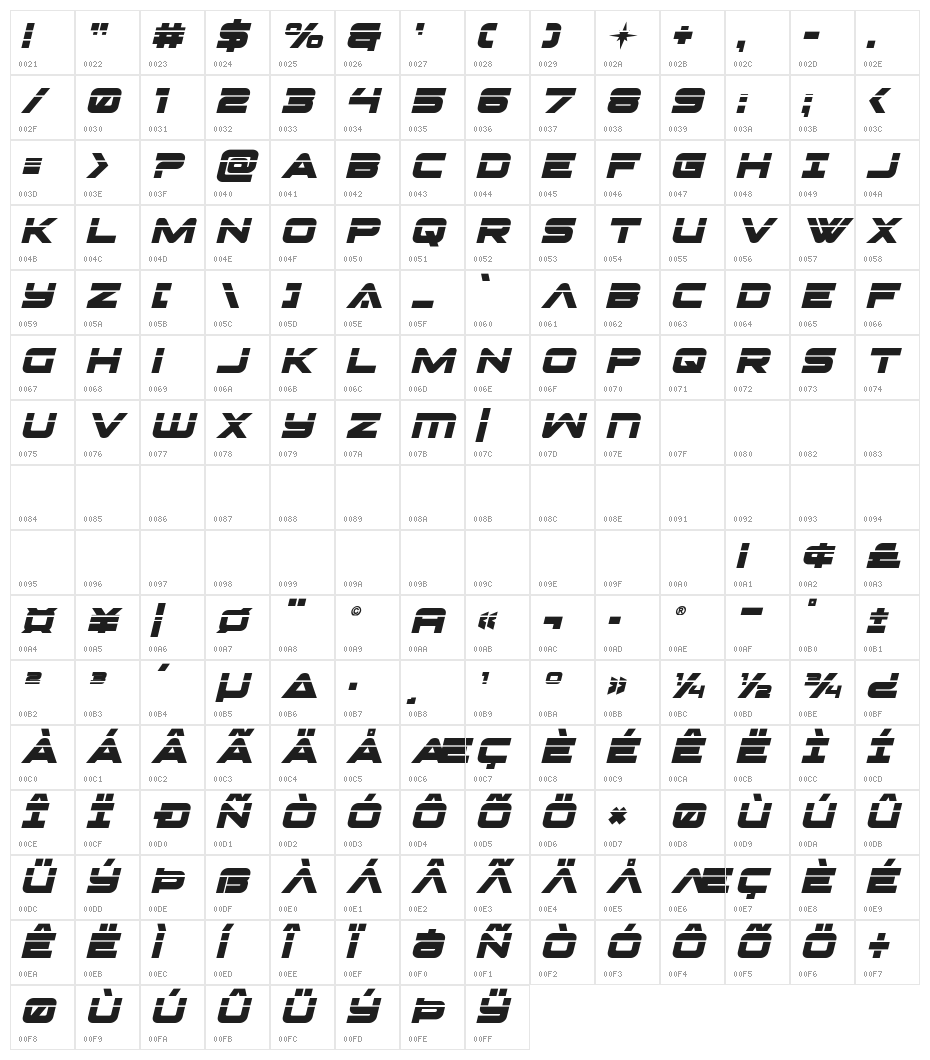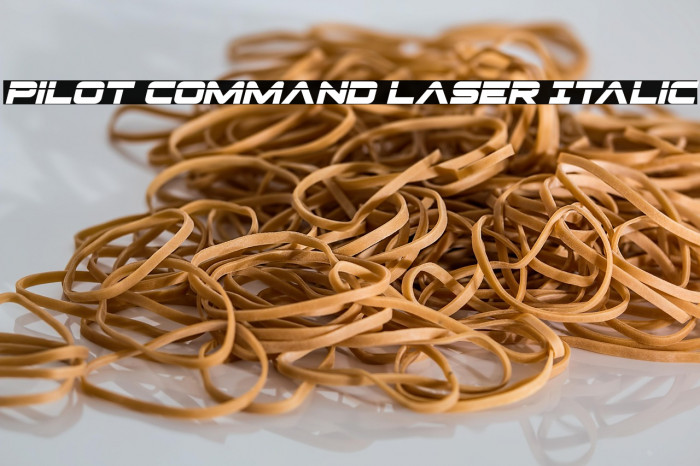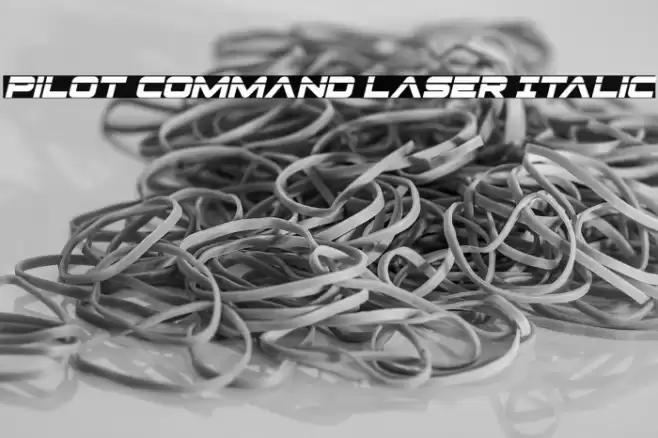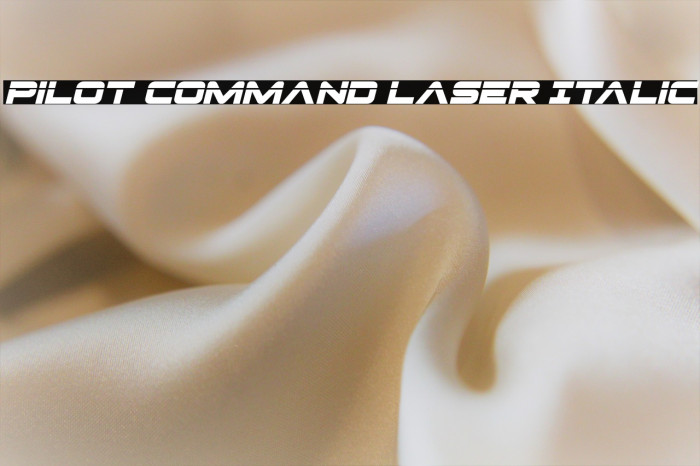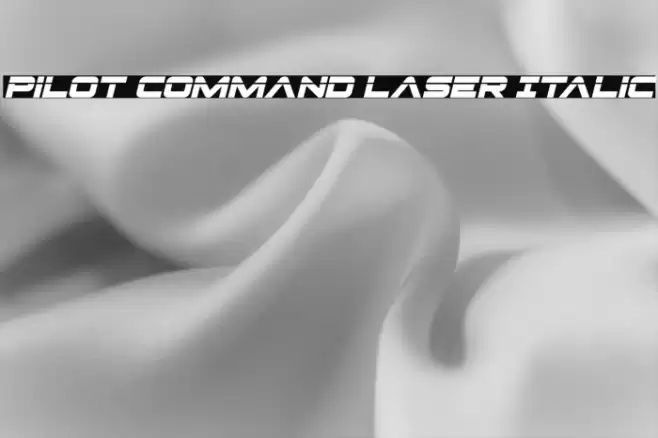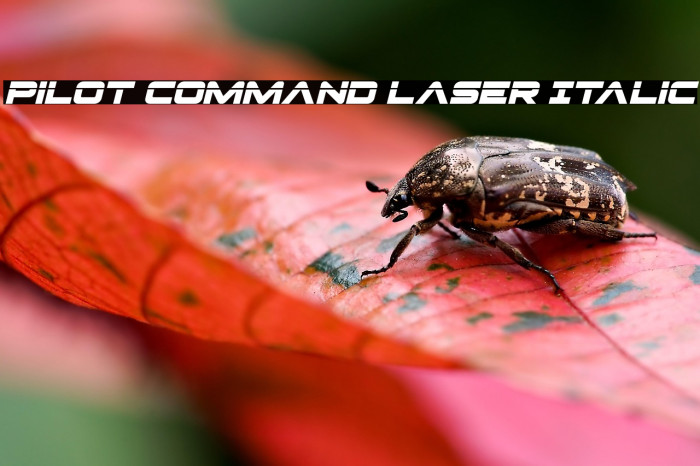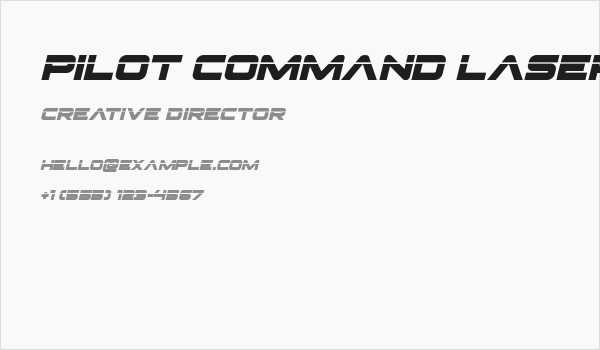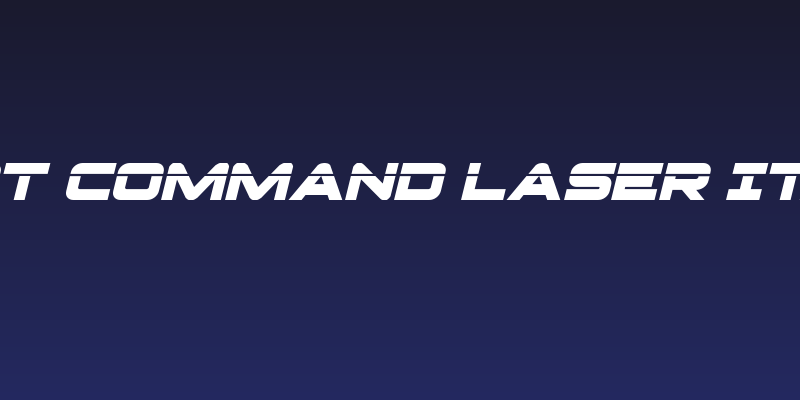
Pilot Command Laser Italic Font
Pilot Command Laser Italic Description
This dynamic and futuristic typeface features a bold, italicized style with sharp angles and a sleek, aerodynamic appearance. The characters are designed with a forward-leaning slant, giving a sense of motion and speed. The strokes are thick and consistent, providing a strong visual impact. The font's geometric structure and clean lines make it suitable for modern and tech-oriented designs. The spacing between characters is tight, enhancing its compact and cohesive look. This font is ideal for projects that require a cutting-edge and energetic aesthetic.
| Proposed Projects | Ideal for tech branding, sci-fi movie posters, video game titles, and futuristic product packaging. |